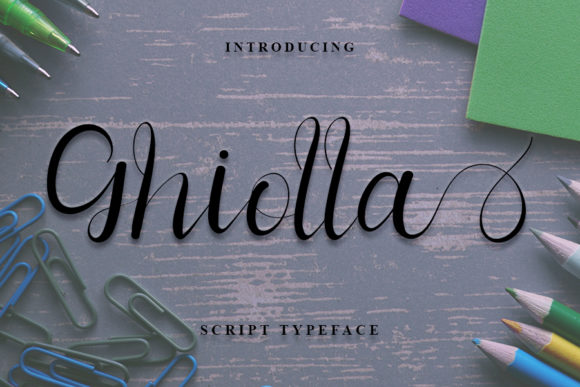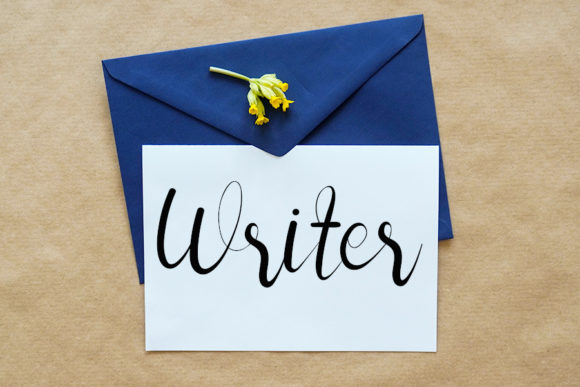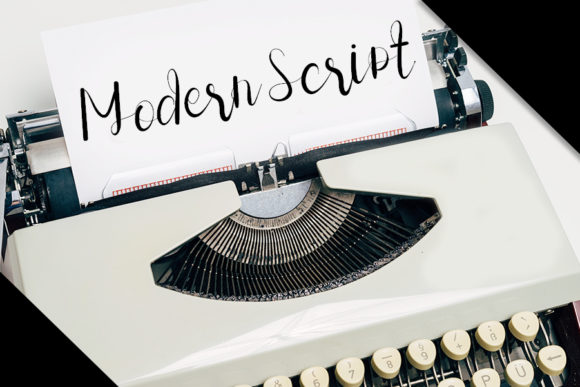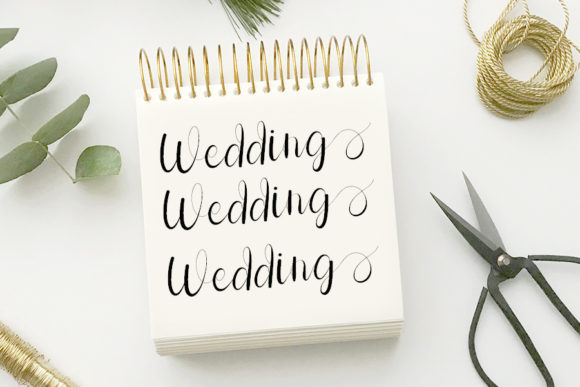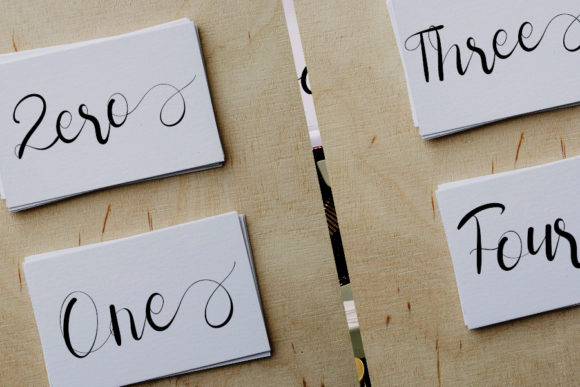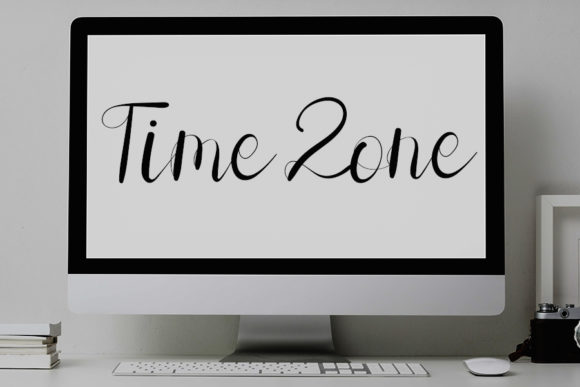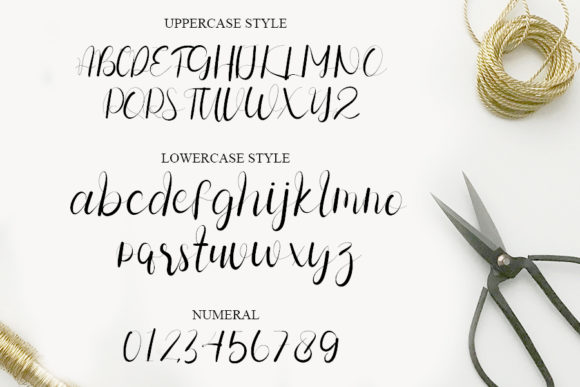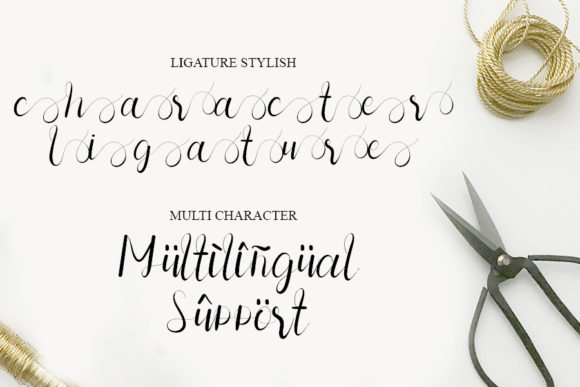
Ghiolla Font
Ghiolla is a sweet and delicate script font that exudes elegance and trendiness. Its stylish and carefully crafted characters make it a versatile choice for a wide range of design projects. Whether you’re working on branding materials, product packaging, invitations, quotes, t-shirts, labels, posters, or logos, Ghiolla adds a touch of sophistication and charm.
With its graceful and flowing letterforms, Ghiolla captures attention and creates a sense of elegance in your designs. The script style of the font gives it a handcrafted and personalized feel, making it perfect for adding a personal touch to your projects.
Ghiolla’s versatility shines through its ability to adapt to various design contexts. It can enhance the visual appeal of your branding materials, creating a strong and memorable impression. The font’s delicate and elegant characters make it suitable for product packaging, evoking a sense of refinement and sophistication.
When used in invitations, Ghiolla brings a touch of elegance to special events such as weddings, parties, or formal gatherings. Its trendy and stylish nature adds a contemporary flair to the overall design, making it visually appealing and engaging.
In quotes and typography-driven designs, Ghiolla’s delicate and sweet style adds a sense of warmth and intimacy. It helps to convey the intended message with a touch of elegance and visual interest. Whether it’s on t-shirts, labels, or posters, Ghiolla creates a captivating and fashionable aesthetic.
With its versatile and trendy nature, Ghiolla is a font that can adapt to different design themes and styles. It can complement both minimalist and elaborate designs, adding a touch of elegance and sophistication.
In summary, Ghiolla is a sweet and delicate script font that brings elegance and trendiness to your designs. Its elegant and trendy characters make it suitable for a wide range of design projects, including branding, product packaging, invitations, quotes, t-shirts, labels, posters, and logos. With Ghiolla, you can create visually appealing and captivating designs that leave a lasting impression.